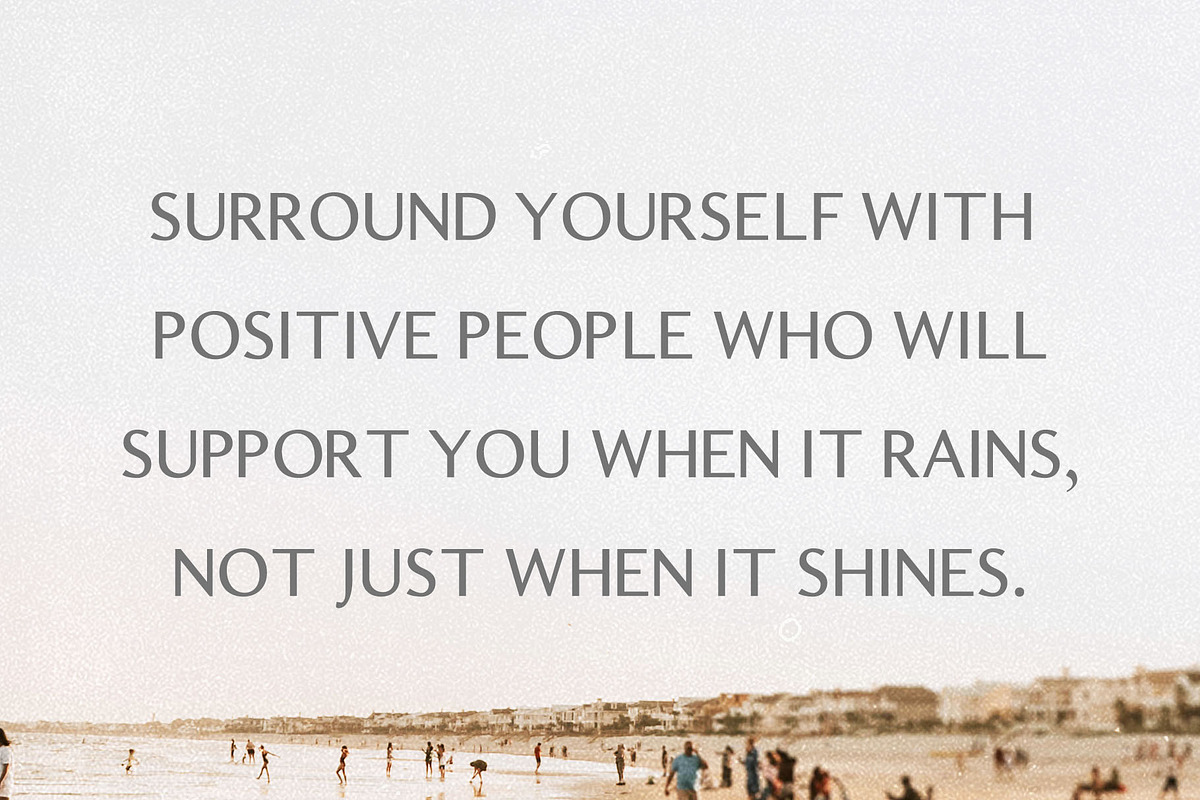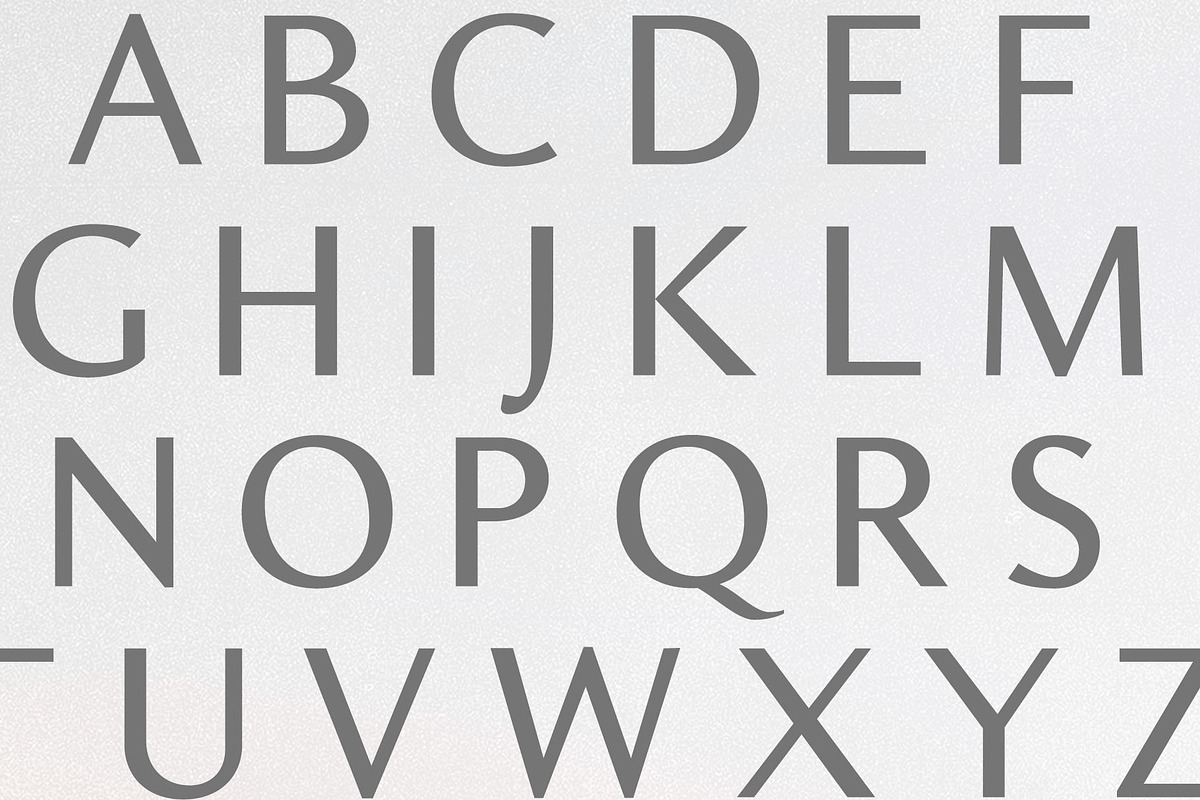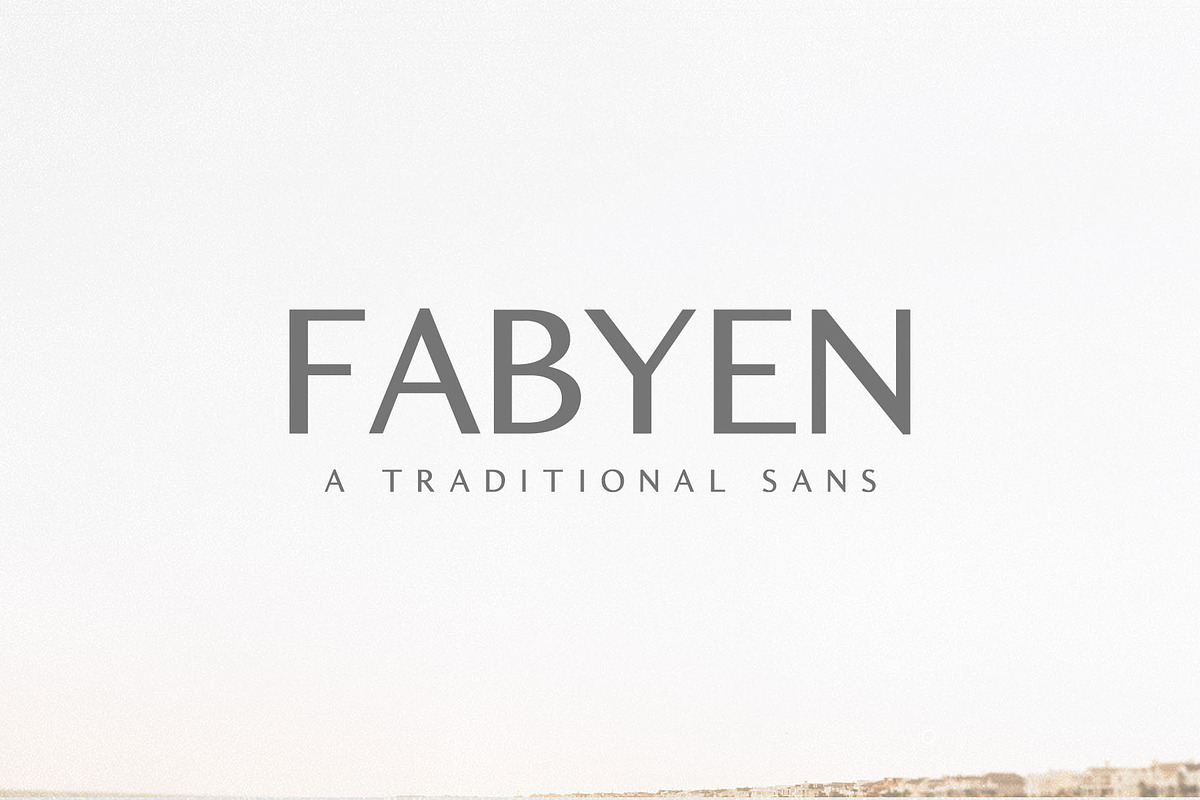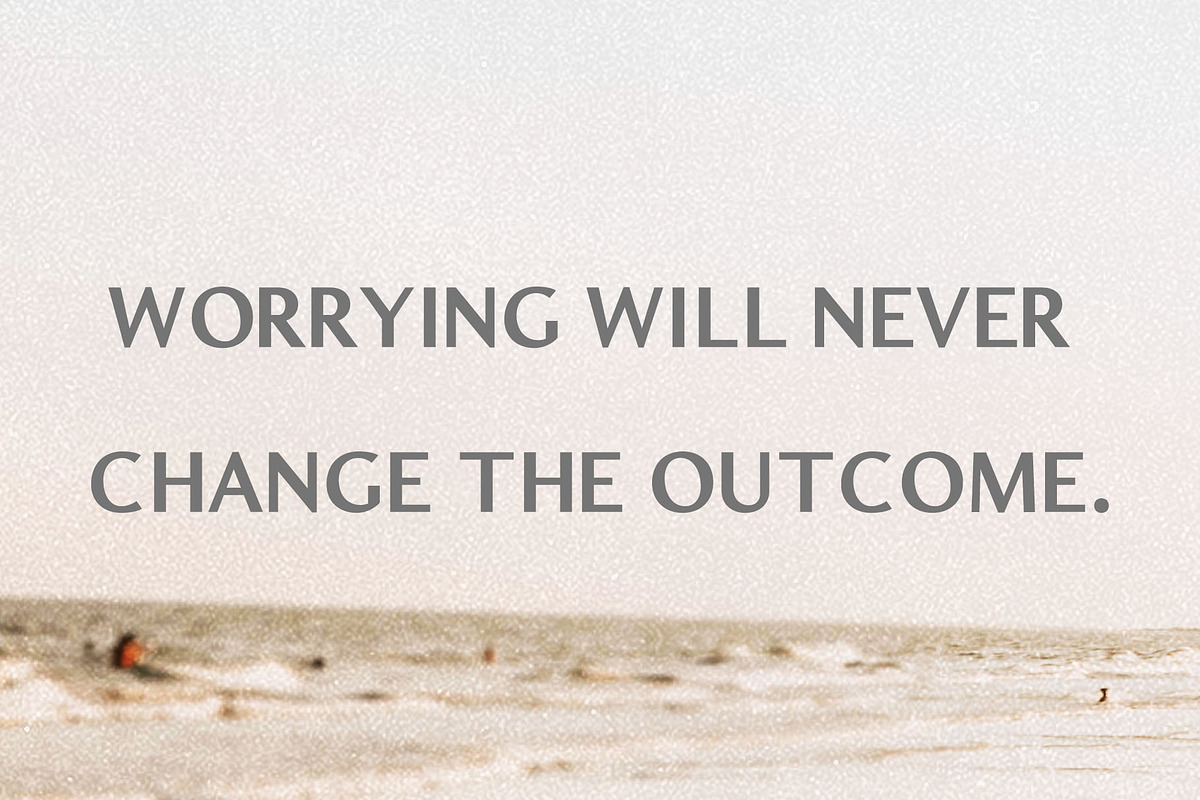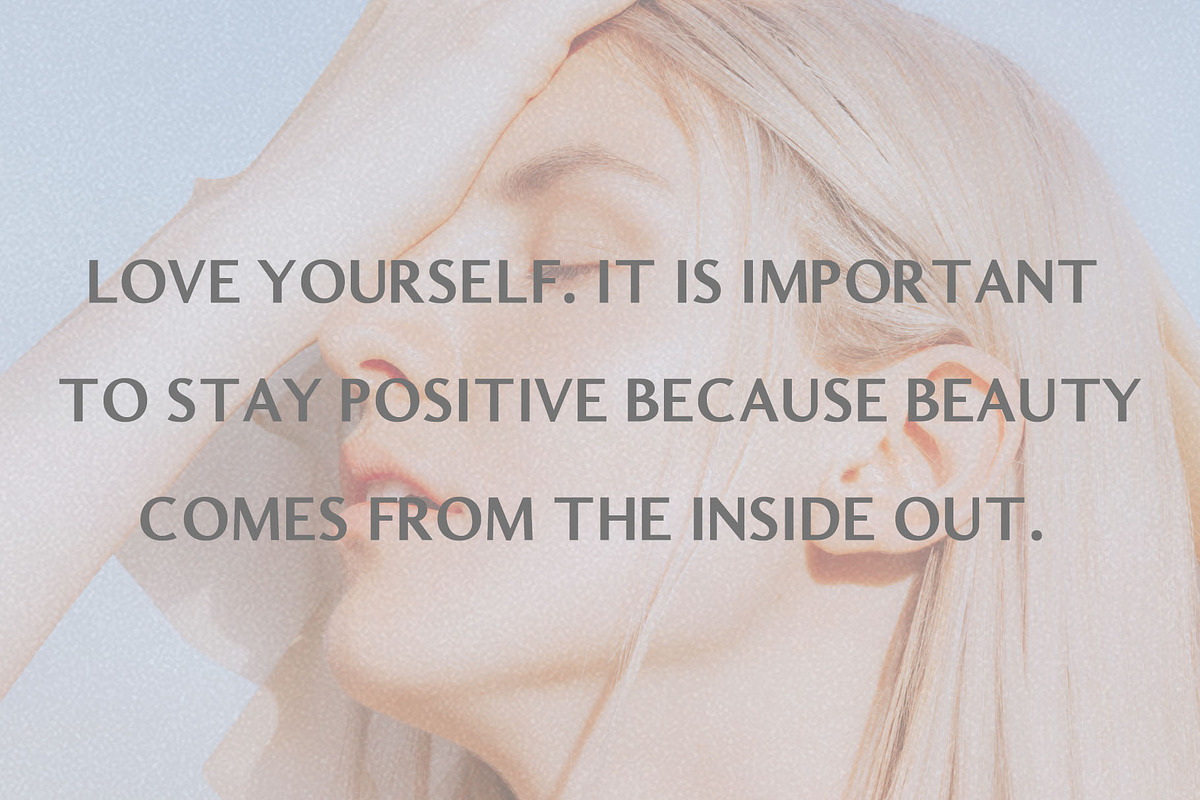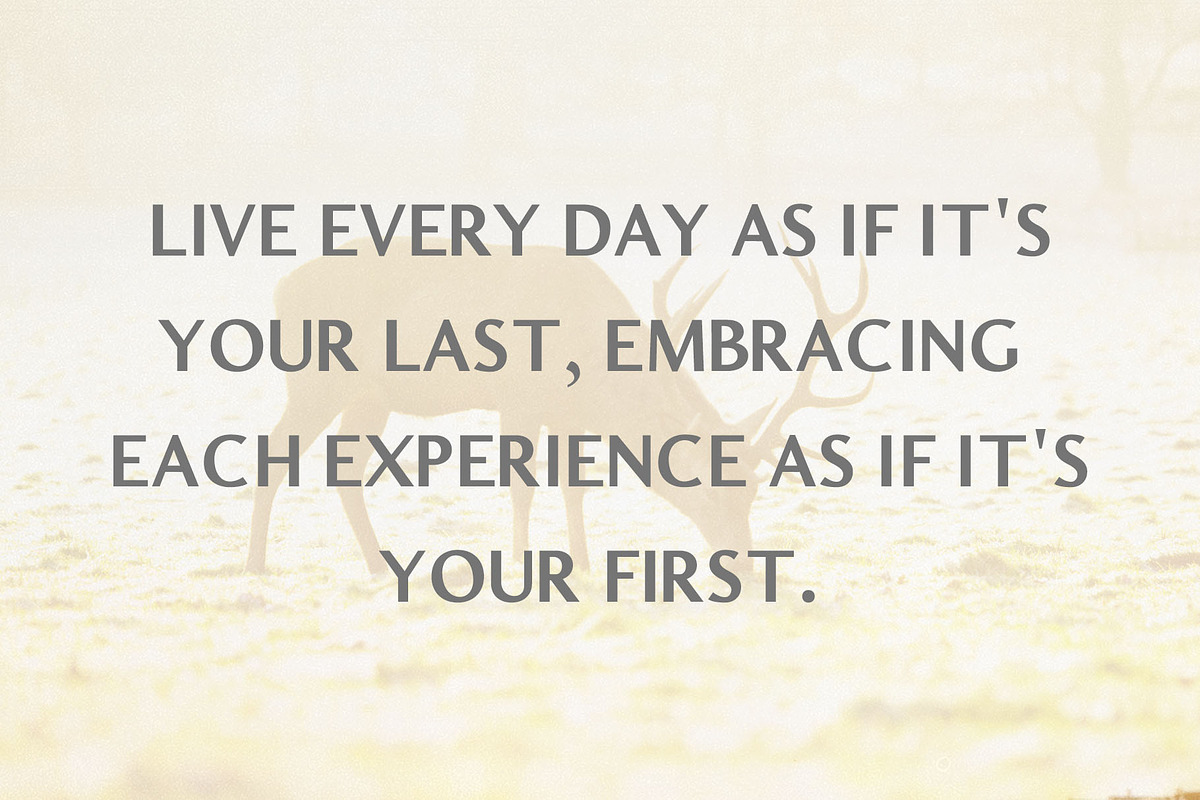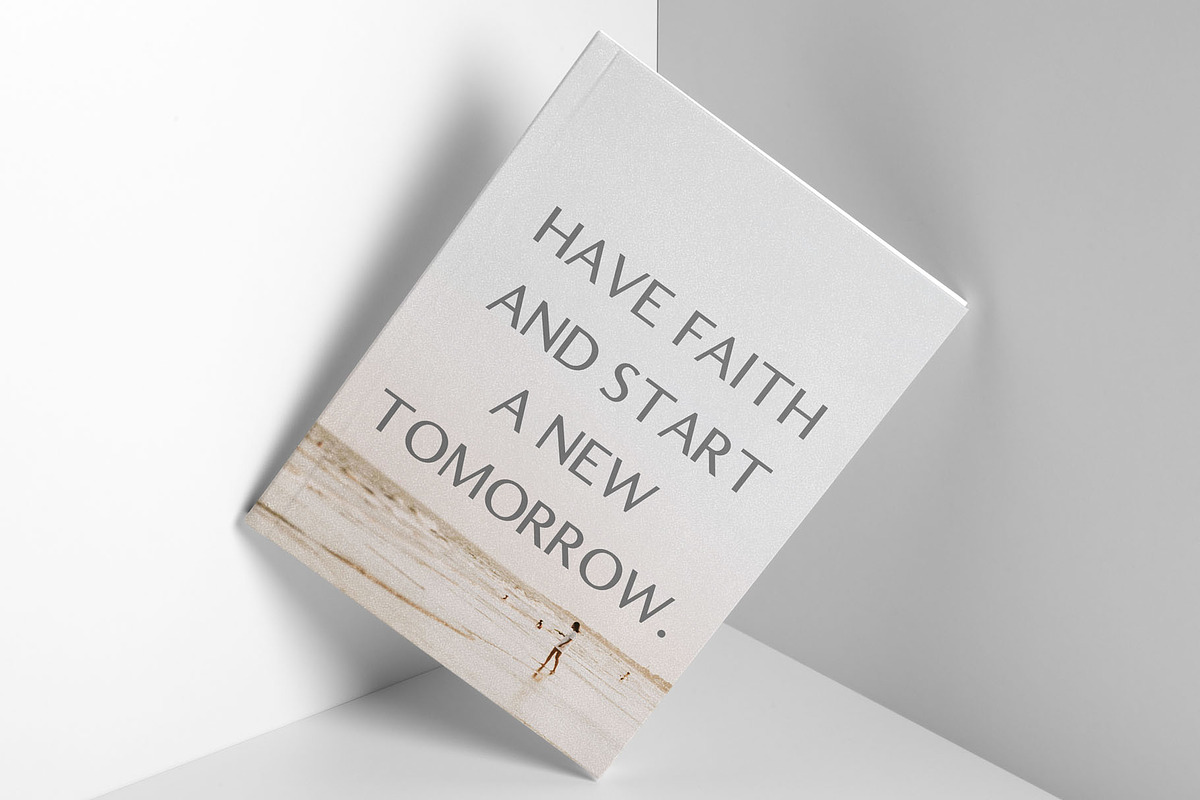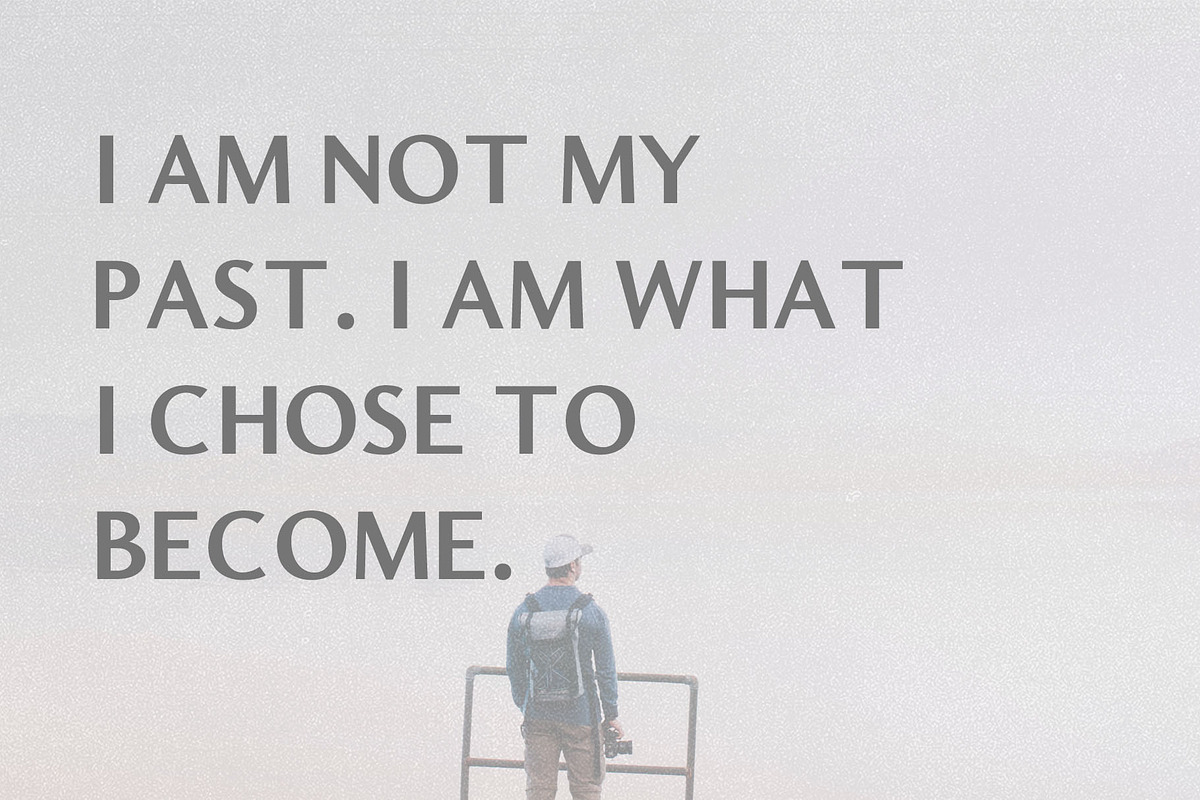
Fabyen A Traditional Sans Font Pack
Fabyen is a traditional and reliable sans serif typeface. It comes with 4 weights: Regular, Light, Round and Bold versions, which contains complete basic glyphs with multilingual support. This font will be great for packaging, presentations, logo, headlines, lettering, posters, branding, quotes, titles, magazines headings, web layouts, advertising, invitations, packaging design, books, and nearly any creative design.
Font Weight: Regular, Light, Round and Bold
Fabyen Font Features:
- It comes with 4 weights: Regular, Light, Round and Bold versions, which contains complete basic glyphs with multilingual support.
- Font Weight: Regular, Light, Round and Bold
- Fabyen Light
- Fabyen regular
- Fabyen Bold
- Fabyen Round